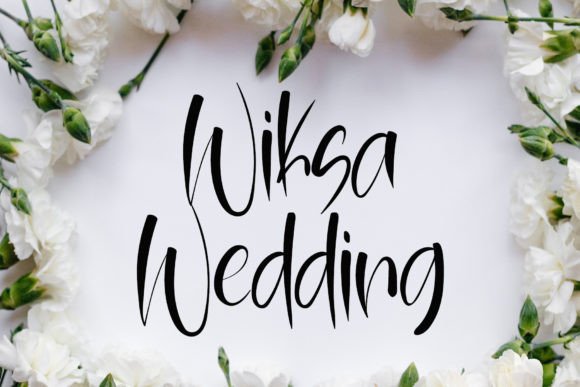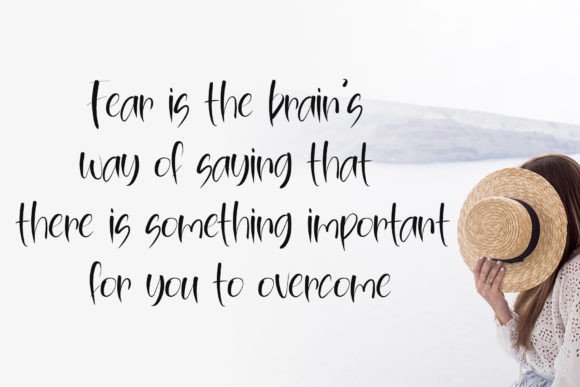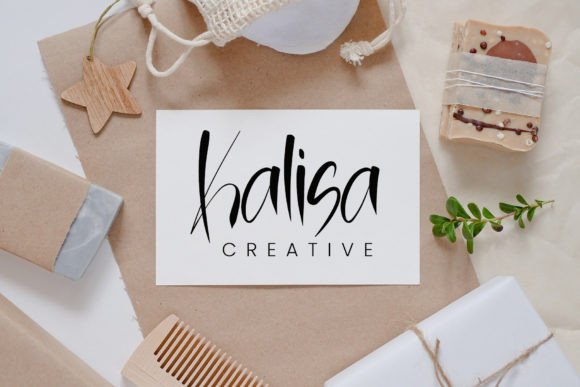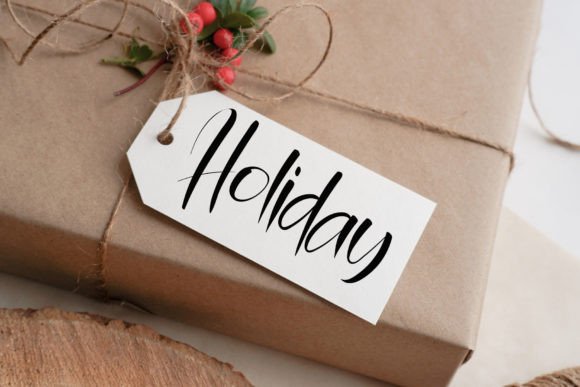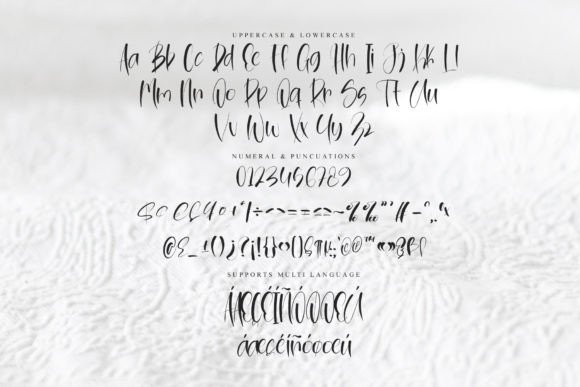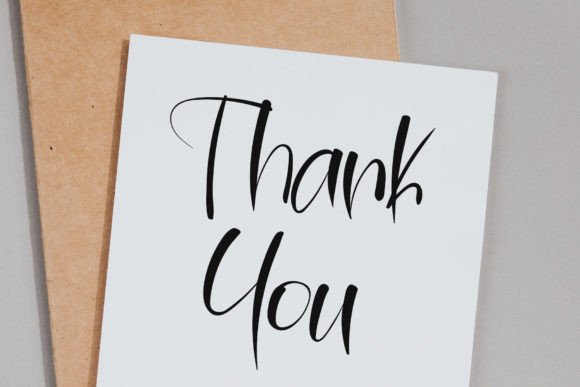
Introducing Backside Font: The Sweet and Cursive Handwritten Font for Your Design Needs
Are you a designer or crafter looking for a font that can add a touch of joy and romance to your projects? Look no further than Backside Font, a sweet and cursive handwritten font that is sure to impress. In this article, we’ll take a closer look at the features and benefits of Backside Font, and explore how you can use it to elevate your designs.
What is Backside Font?
Backside Font is a beautiful, cursive handwritten font that is designed to add a touch of elegance and whimsy to your designs. With its gentle and flowing lines, this font is perfect for creating a romantic and feminine look that’s sure to capture the attention of your audience. Whether you’re working on a branding project, a wedding invitation, or a craft project, Backside Font is the perfect choice.
Key Features of Backside Font
So, what makes Backside Font so special? Here are just a few of its key features:
- Sweet and Cursive Design: Backside Font features a beautiful, cursive handwritten design that’s sure to add a touch of sweetness to your projects.
- Gentle and Flowing Lines: The font’s gentle and flowing lines make it perfect for creating a romantic and feminine look.
- Versatile: Backside Font can be used on a variety of design projects, from branding and advertising to wedding invitations and craft projects.
- Easy to Read: Despite its cursive design, Backside Font is easy to read, making it perfect for use in body text and other applications where readability is key.
How to Use Backside Font in Your Designs
So, how can you use Backside Font in your designs? Here are a few ideas to get you started:
- Wedding Invitations: Backside Font is perfect for creating beautiful and romantic wedding invitations that will set the tone for your special day.
- Branding and Advertising: Use Backside Font to create a unique and memorable brand identity that will help you stand out from the crowd.
- Craft Projects: Backside Font is perfect for use in craft projects, such as scrapbooking, card making, and other paper crafts.
- Social Media Graphics: Use Backside Font to create eye-catching social media graphics that will help you connect with your audience.
Tips for Getting the Most Out of Backside Font
Here are a few tips for getting the most out of Backside Font:
- Use it with Other Fonts: Backside Font pairs well with other fonts, so don’t be afraid to experiment with different combinations.
- Experiment with Colors: Backside Font looks great in a variety of colors, so try experimenting with different hues and shades to find the perfect look for your project.
- Pay Attention to Spacing: Make sure to pay attention to the spacing between letters and words to ensure that your text is easy to read.
In conclusion, Backside Font is a beautiful and versatile font that is perfect for designers and crafters looking to add a touch of joy and romance to their projects. With its sweet and cursive design, gentle and flowing lines, and ease of use, Backside Font is sure to become a favorite in your font collection. So why wait? Download Backside Font today and start creating beautiful designs that will capture the attention of your audience!